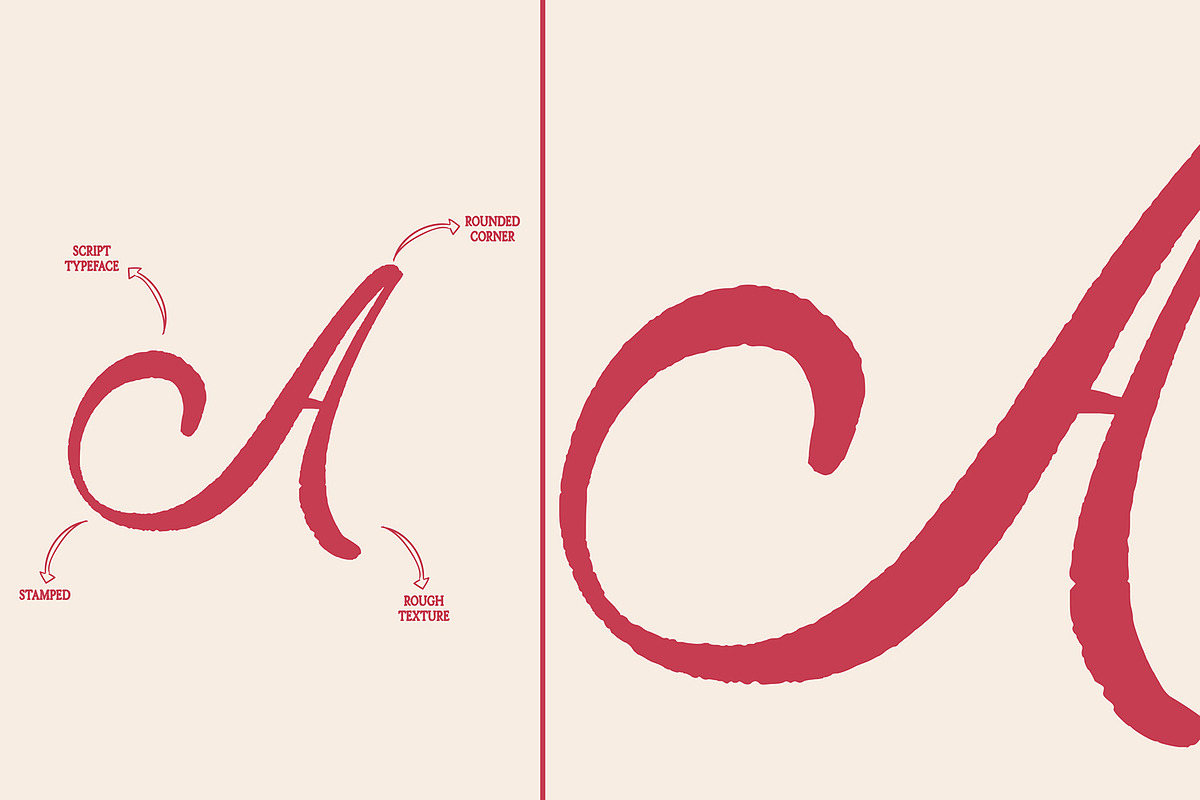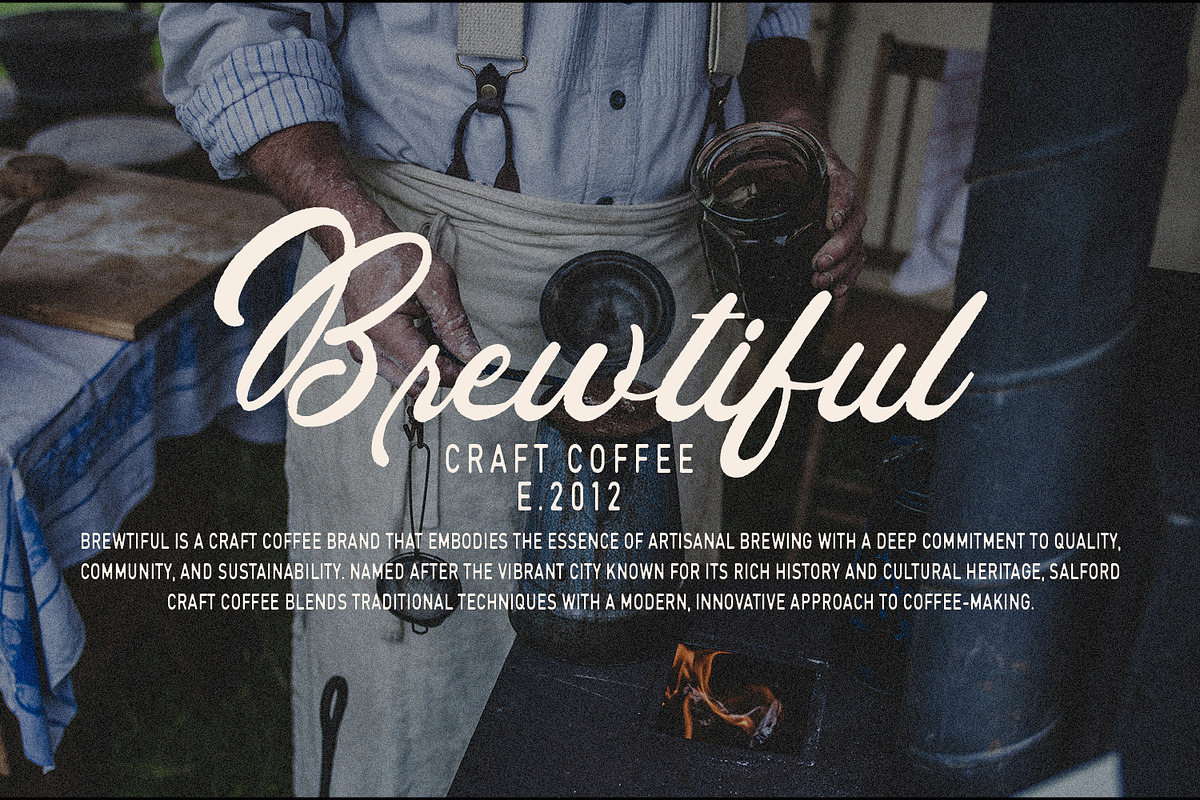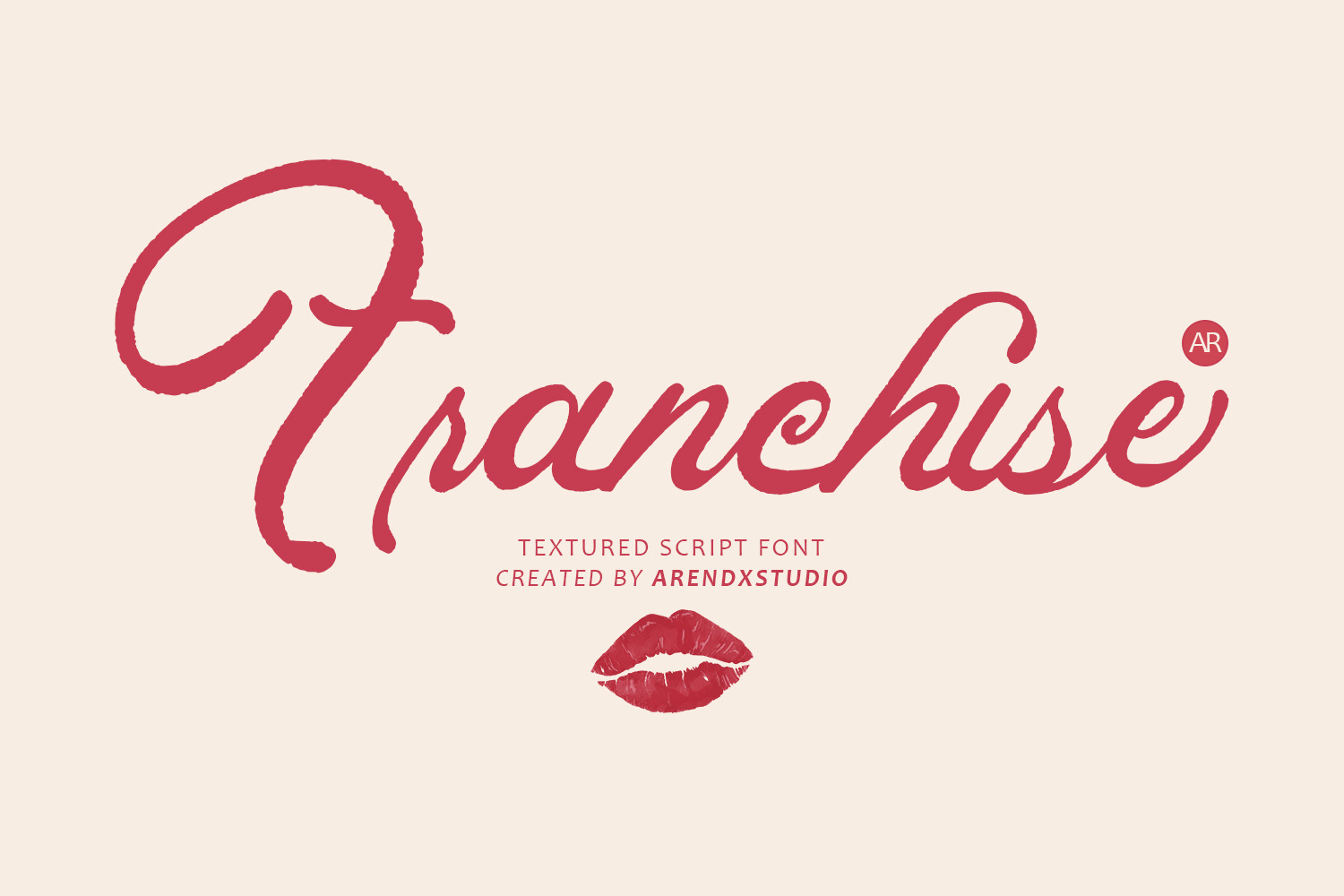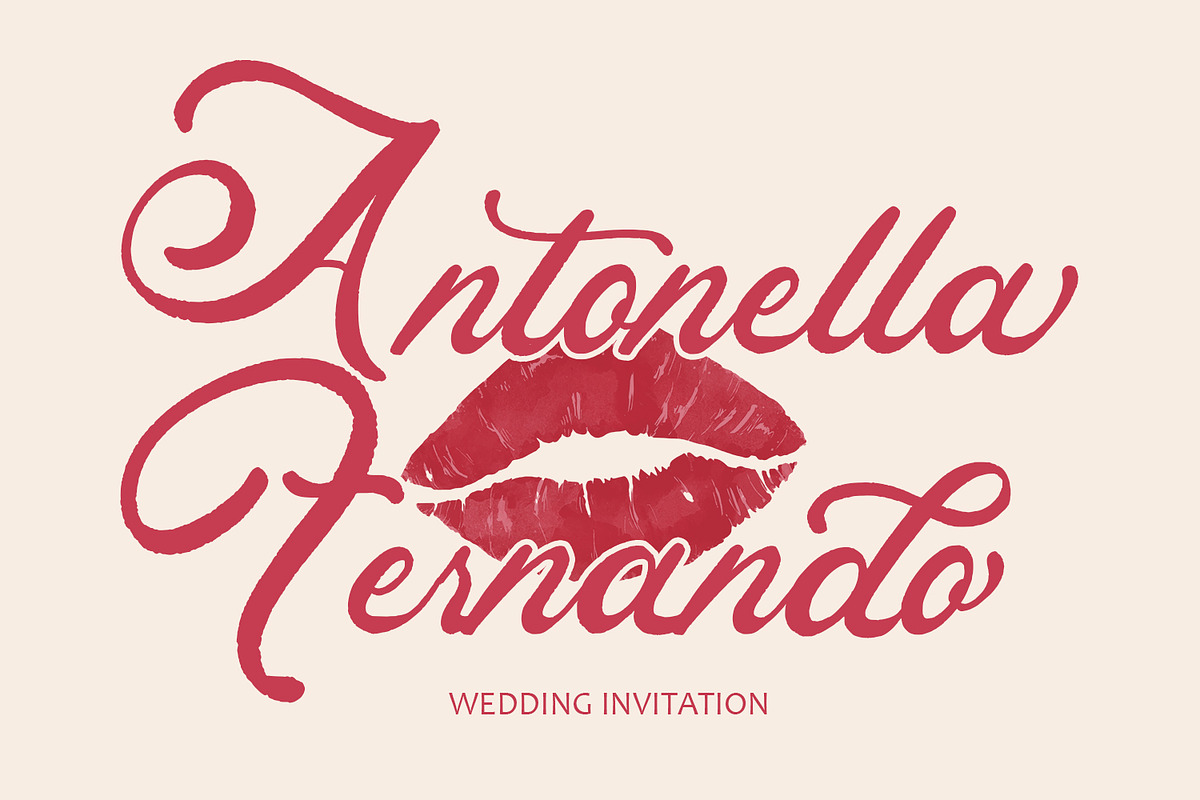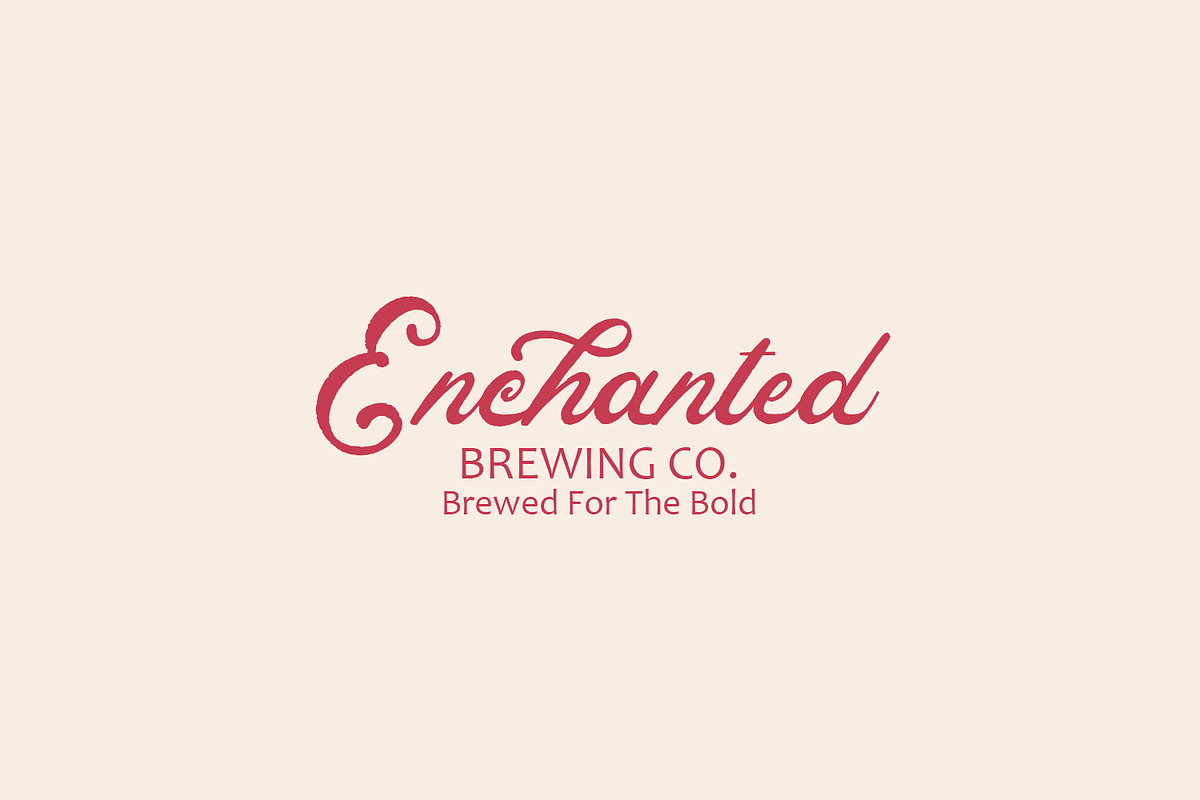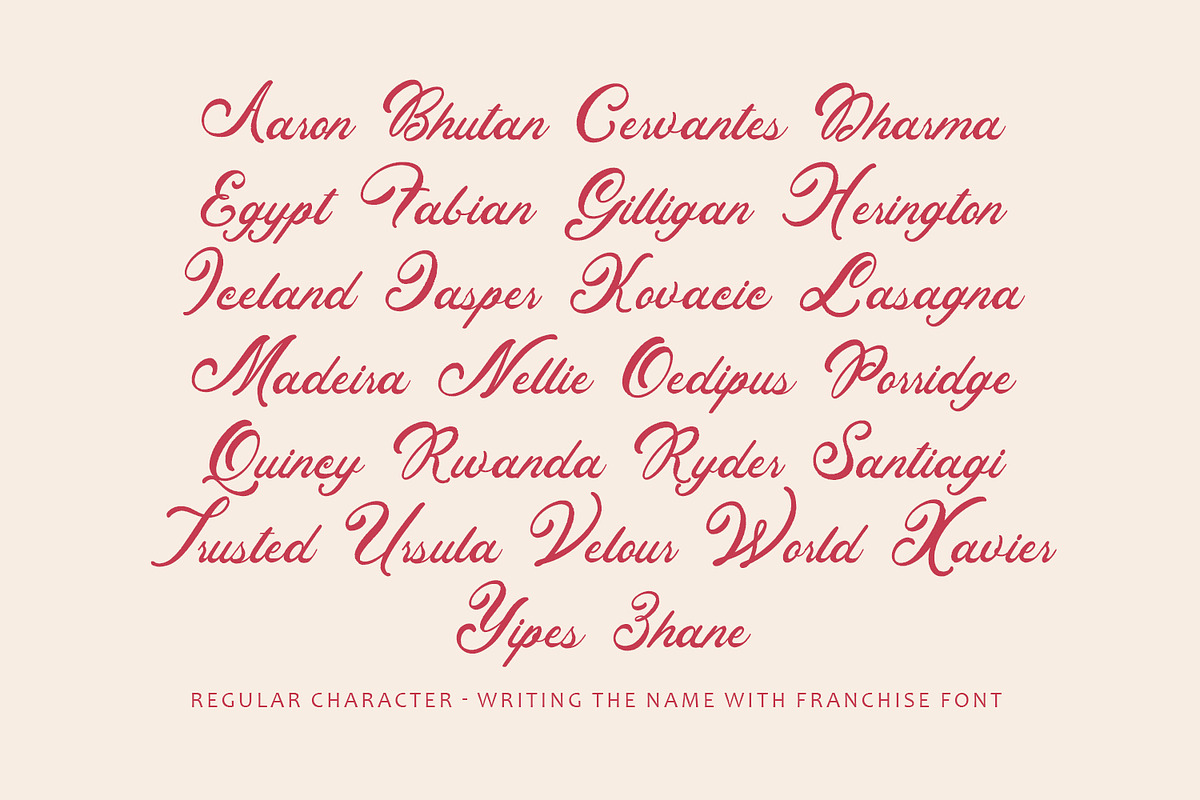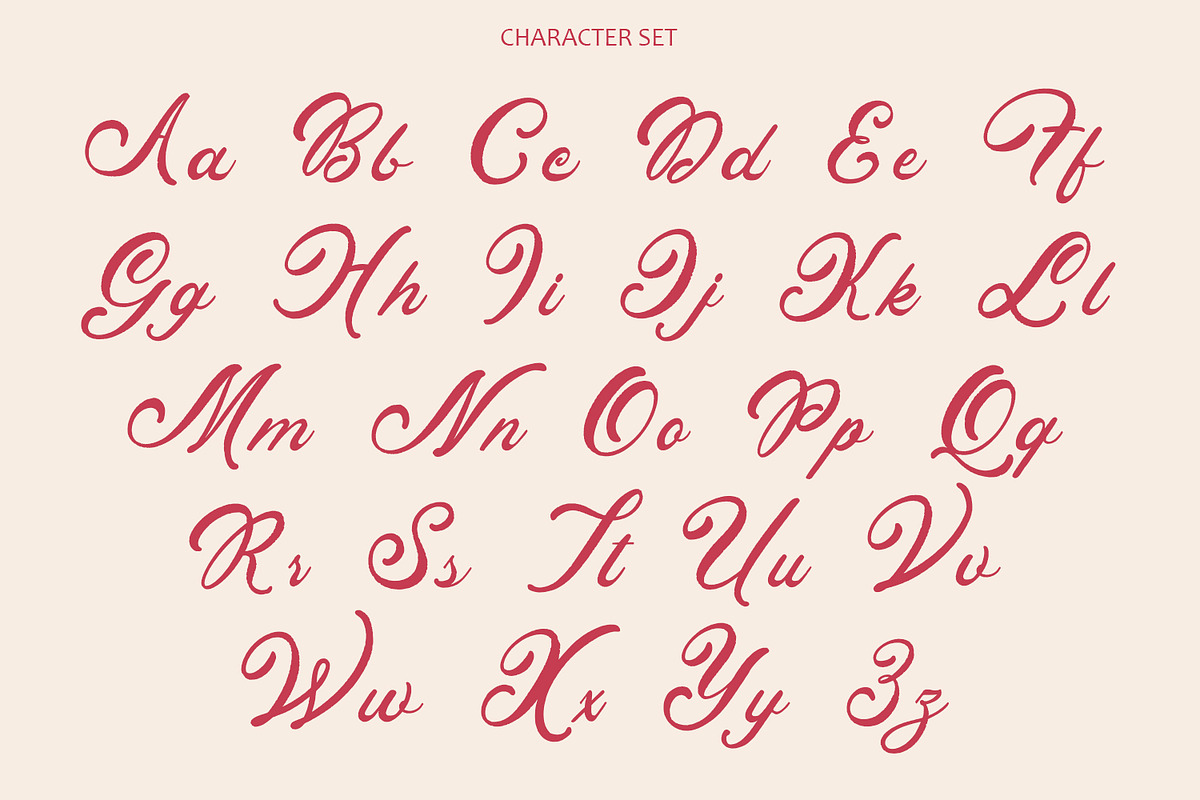
Franchise Script Font
Franchise Font: A Textured Script Font
Franchise Font is a bold and dynamic textured script typeface designed to add personality and character to any creative project. This font captures the essence of handcrafted lettering, offering a rough, organic texture that mimics the look and feel of hand-brushed or hand-drawn typography.
Key Features of Franchise Font
Textured Finish
- The font boasts a rugged, imperfect texture that adds depth and authenticity.
- Ideal for projects that aim for a handmade, rustic, or vintage aesthetic.
Script Style
- Features fluid, cursive strokes that bring a sense of motion and elegance.
- Combines legibility with artistic flair, making it suitable for both headlines and smaller text elements.
Versatility
- Works well across various creative applications such as logos, branding, packaging, posters, social media graphics, and more.
- The textured style enhances designs by adding a tactile, realistic feel.
Character Set
- Typically includes uppercase, lowercase, numbers, symbols, and punctuation.
- Some versions may offer ligatures and alternates for added customization.
Bold and Impactful
- Designed to stand out, it’s perfect for projects that require a strong visual identity.
- Excellent for emphasizing key messages or creating eye-catching titles.
- Branding: Logos and identity design for businesses seeking a bold, handmade touch.
- Merchandise: T-shirt designs, apparel, and accessories that demand attention.
- Signage & Packaging: Adding a vintage or artisanal vibe to product labels or store displays.
- Posters & Advertising: Ensuring headlines pop in print and digital media.
Franchise Font delivers a balance of style and substance, combining the raw appeal of textured design with the fluidity of script typography. Whether you’re creating a rustic café logo, designing a bold product label, or crafting unique social media graphics, Franchise Font adds an unforgettable touch to your work.